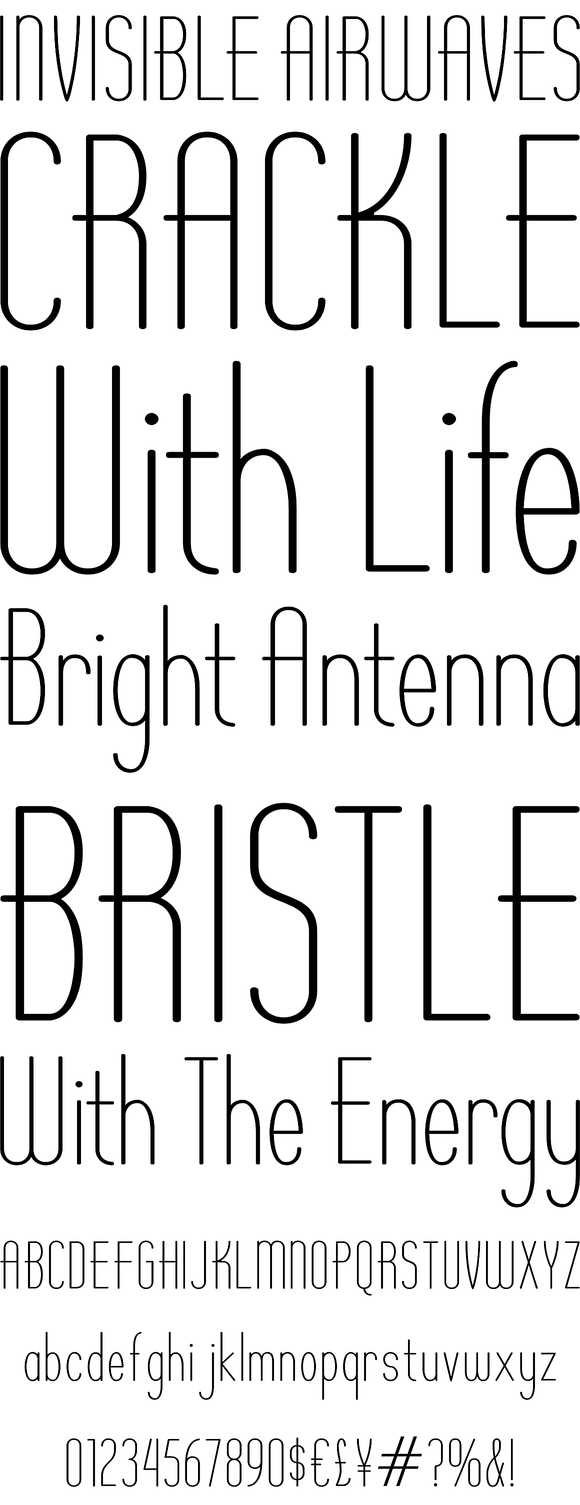
Operator Nine is a clean deco text typestyle with a range of appeals available through its many variants of weights, obliques, and variants such as Inline, Lined, and Shadow. Perfect for small bodies of text, and strongly appealing for logo and headline...
Operator Nine is a clean deco text typestyle with a range of appeals available through its many variants of weights, obliques, and variants such as Inline, Lined, and Shadow. Perfect for small bodies of text, and strongly appealing for logo and headline designs.